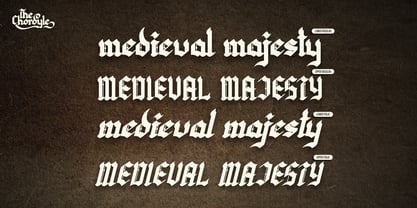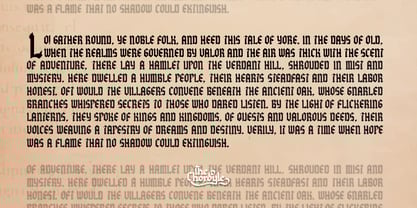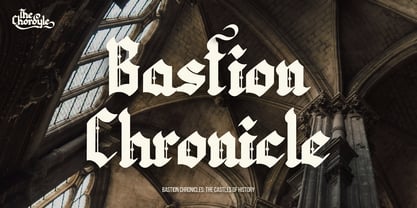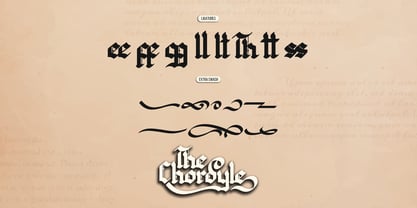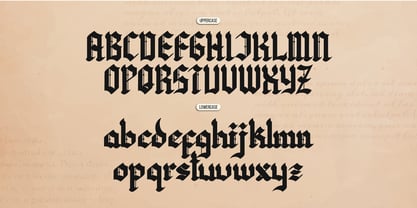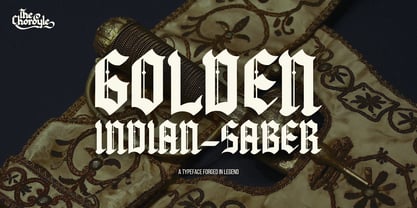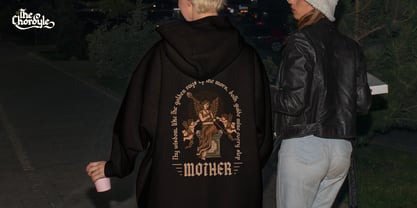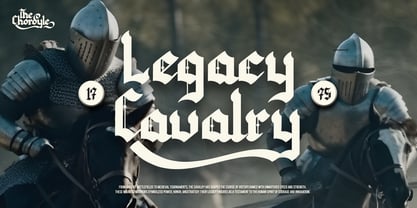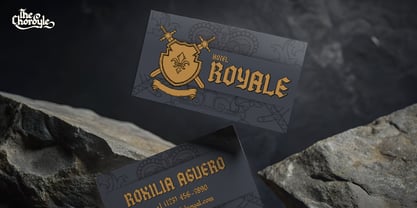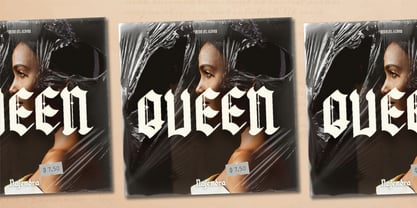
The Chordyle
The The Chordyle Font Family was designed by Dede Nugraha and published by Denustudio. The Chordyle contains 2 styles and family package options. More about this family
The Chordyle | Blackletter Font, from Denustudios, suitable for any projects such as: logos, branding projects, homeware designs, product packaging, mugs, quotes, posters, shopping bags, t-shirts, book covers, name card, invitation cards, greeting cards, label, photography, watermark, special events, and all your other lovely projects that need a Blackletter Font taste.
• Regular and Italic
• Alternate and Ligature